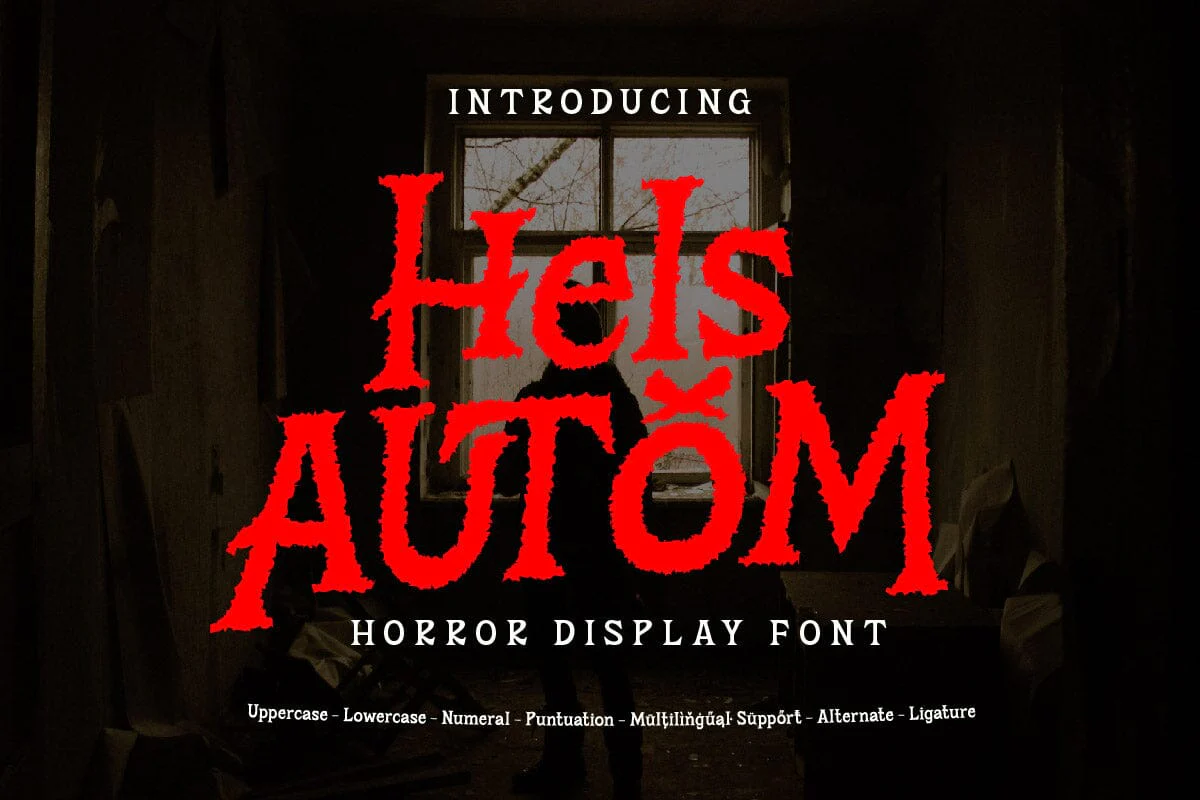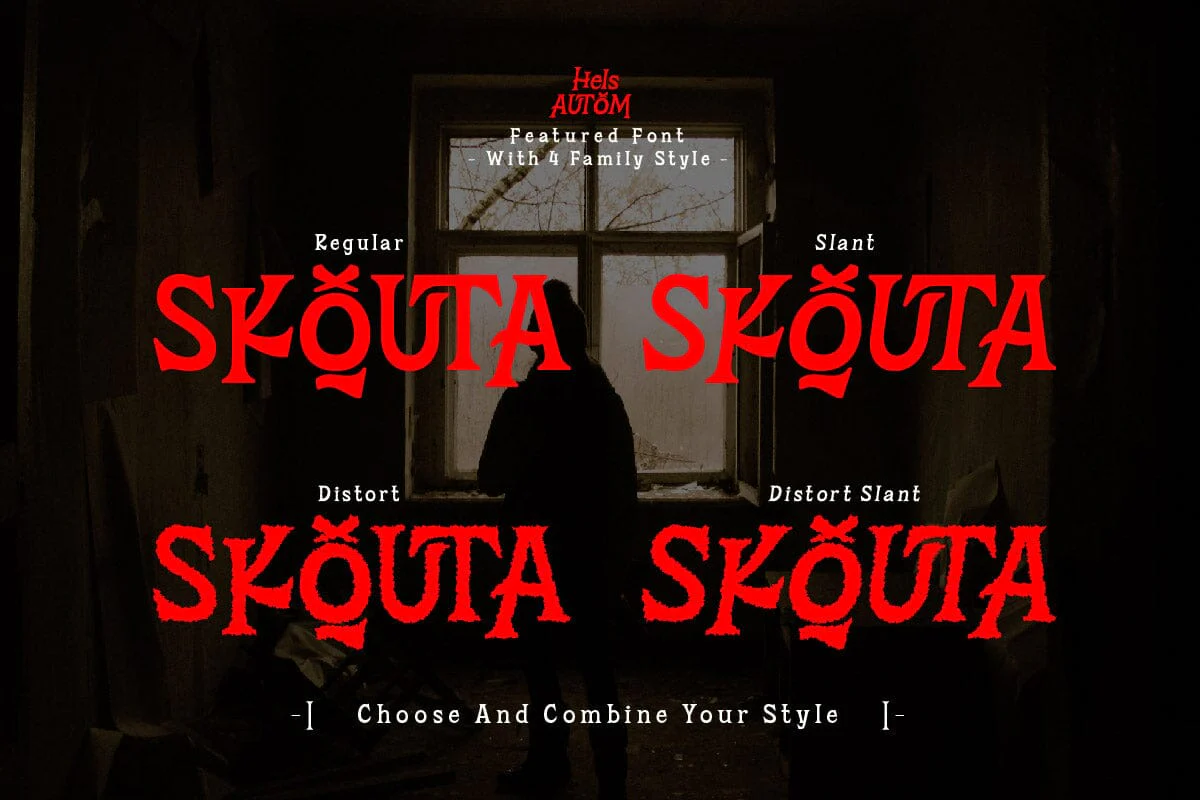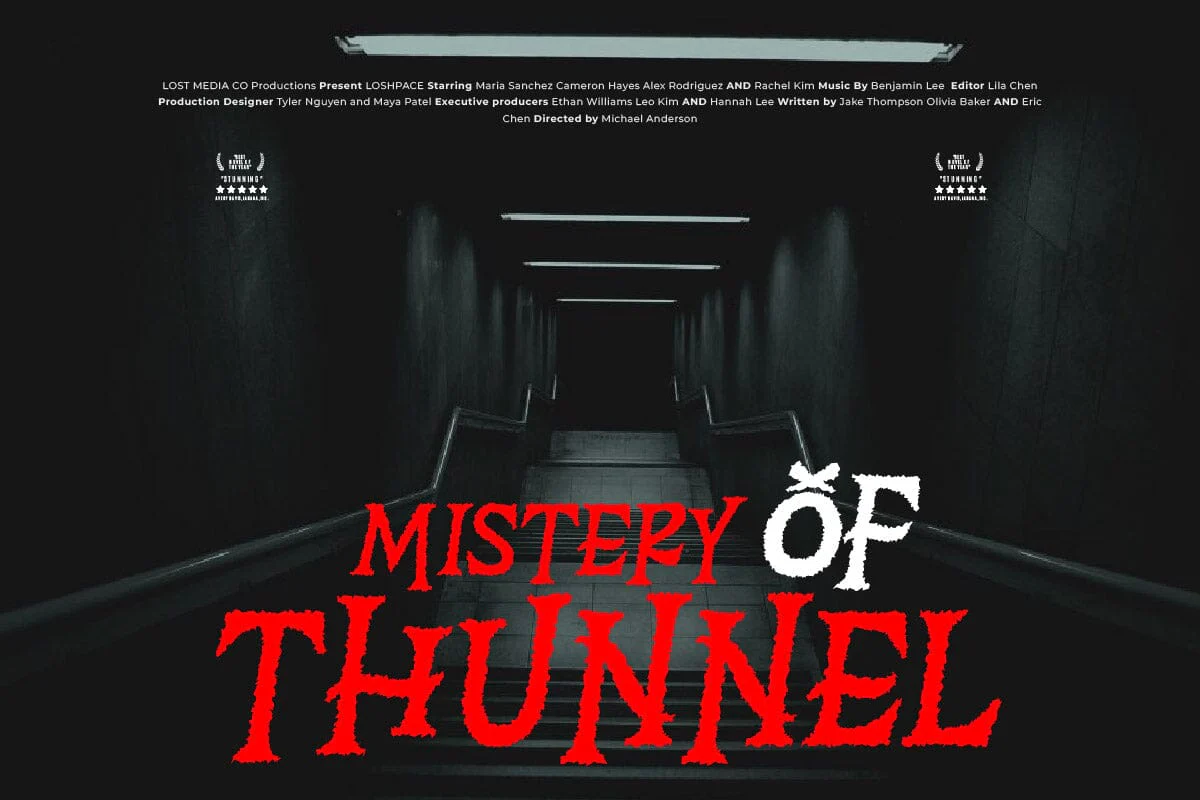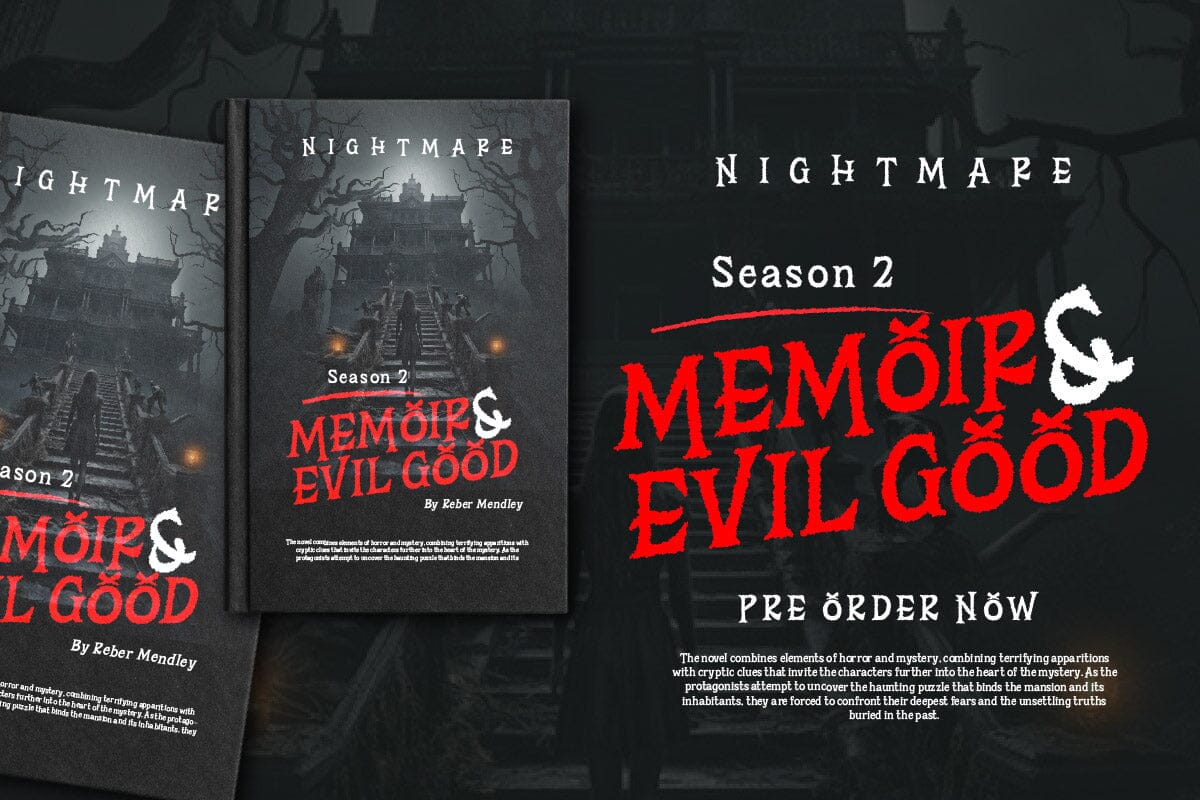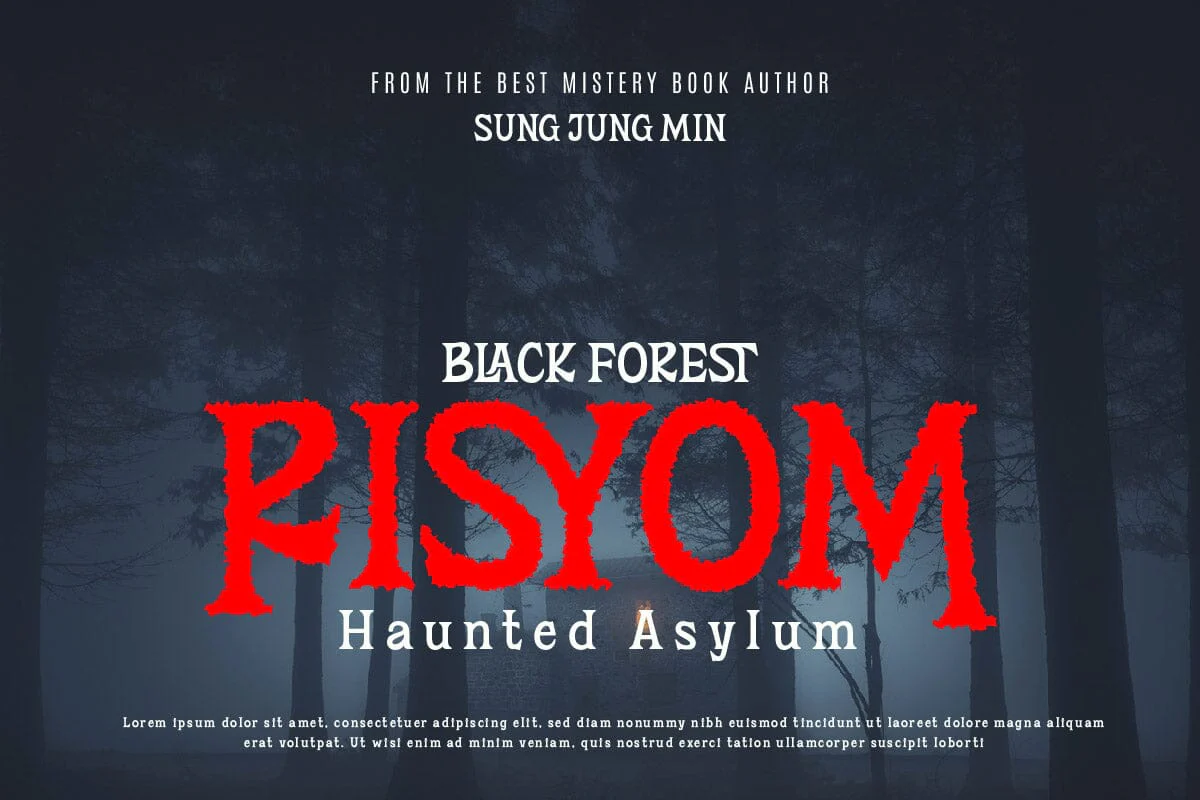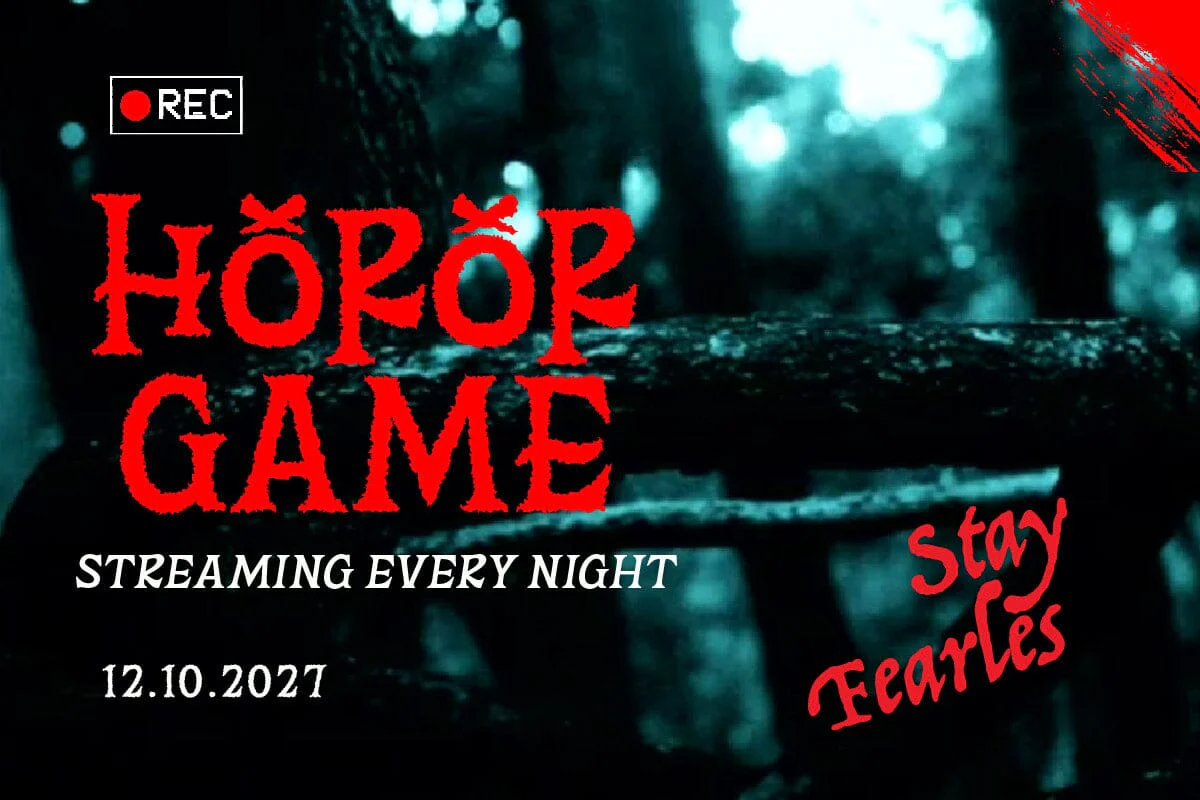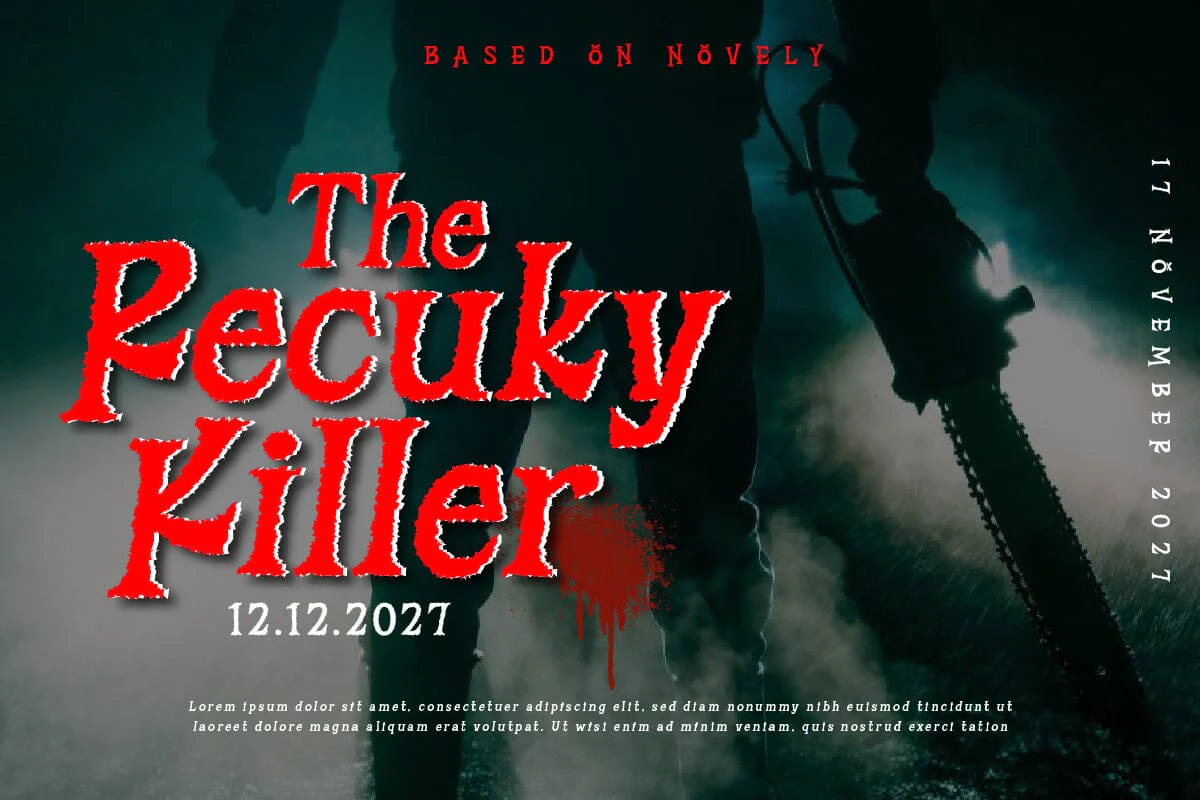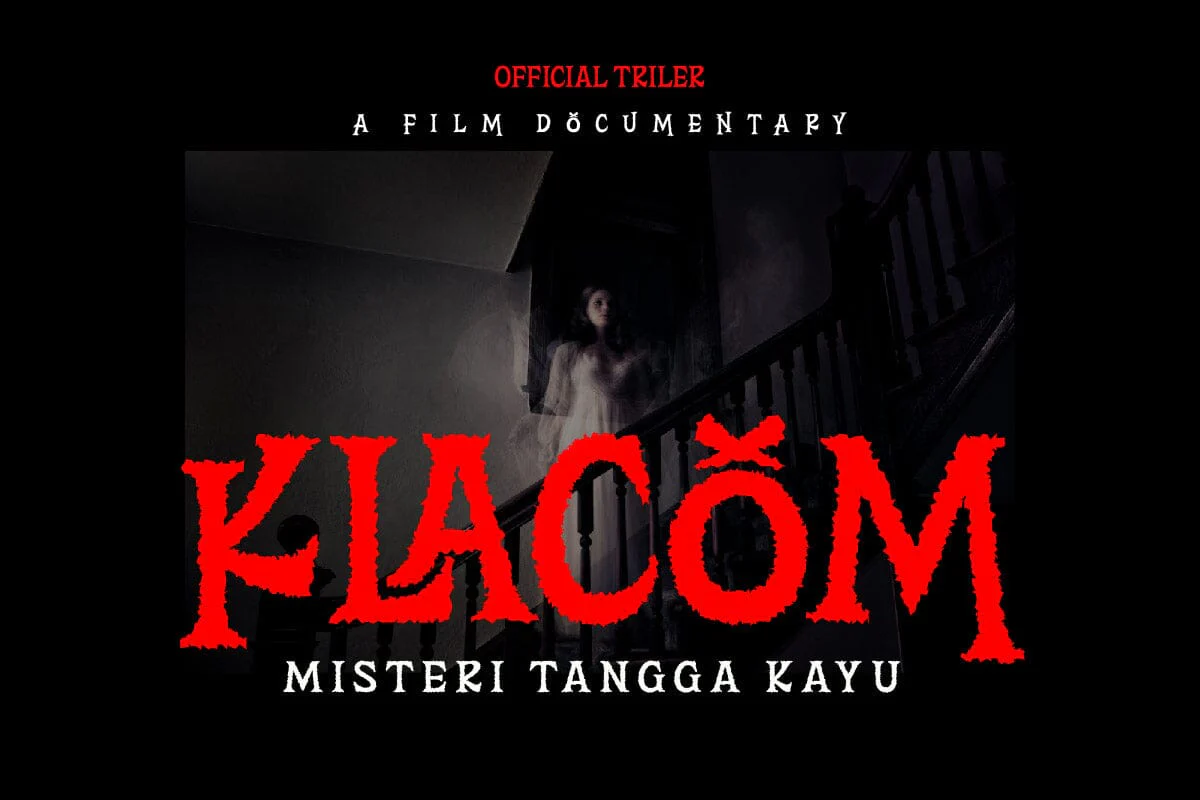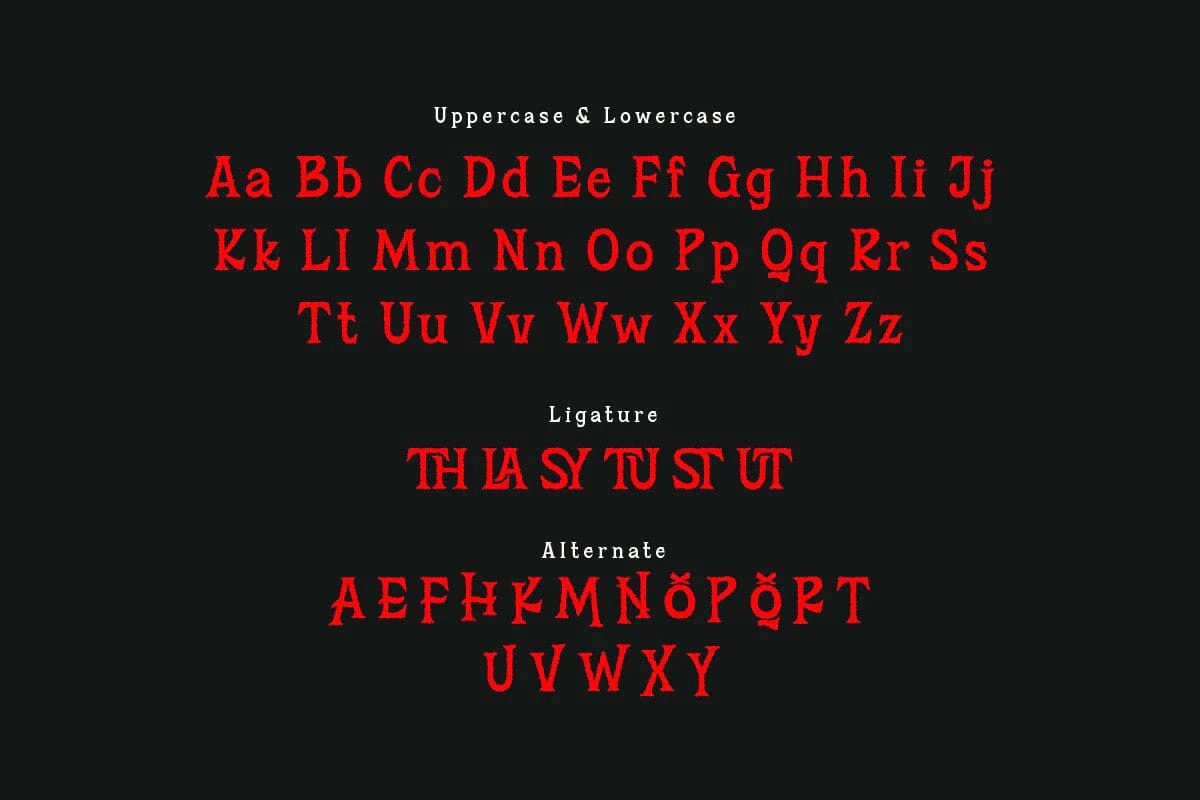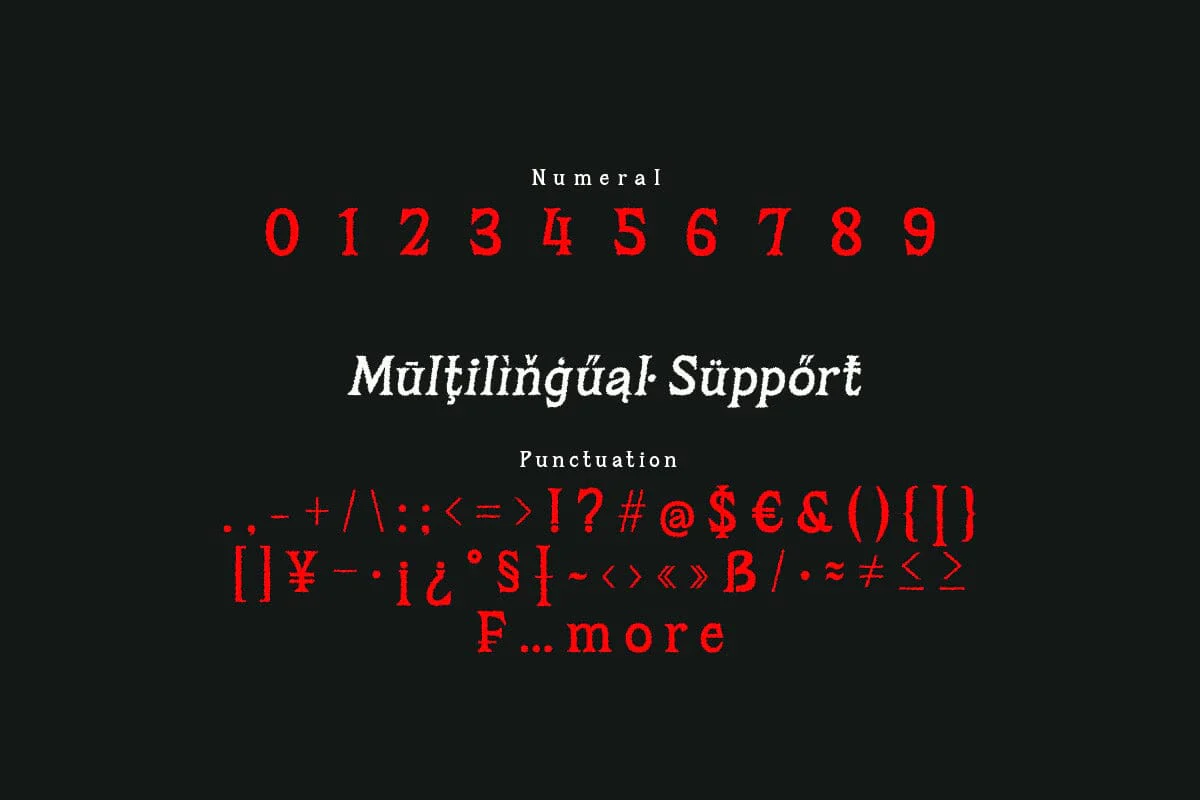
Hels Autom - Horror Display Font
Hels Autom is a horror display font that’s sure to send chills down your spine. Its jagged, irregular letterforms evoke a sense of fear and unease, making it the perfect choice for horror movie posters, book covers, and Halloween-themed designs. But Hels Autom is more than just a font, it’s a way to create an atmosphere of suspense and intrigue. With Hels Autom, your designs will not only be visually striking, but also create an atmosphere that keeps your audience on the edge of their seats. It’s like a shadow in the dark, mysterious and chilling.